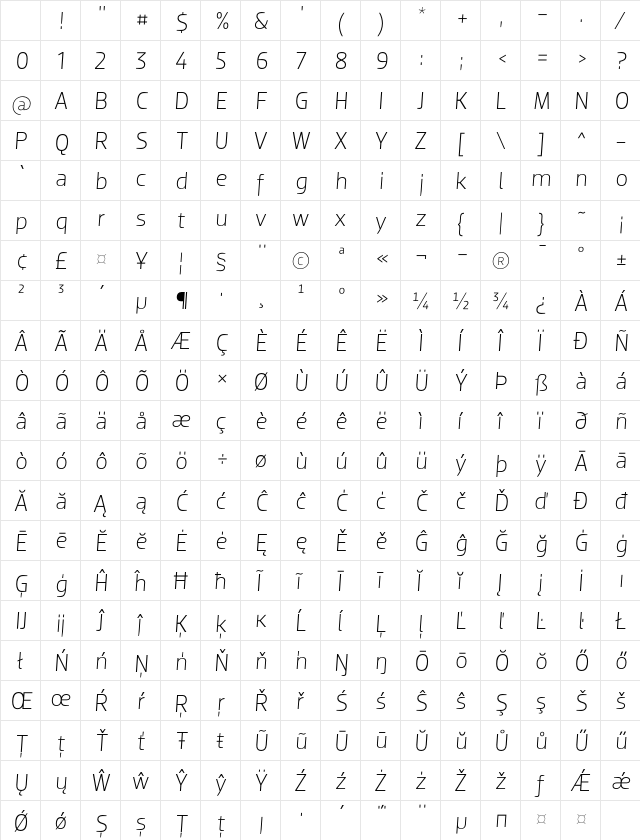
Dobra is a composed and adaptable typeface that performs quietly and consistently across a wide range of design contexts. The slanted form adds forward momentum and visual energy. Its slender proportions lend an understated elegance to any composition.
Pro Tip: Use Dobra for emphasis, pull quotes, and subheadings where its slanted energy can add rhythm to the layout.